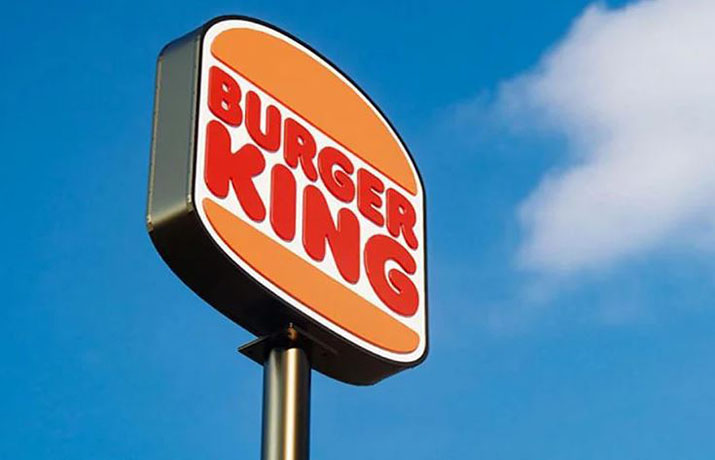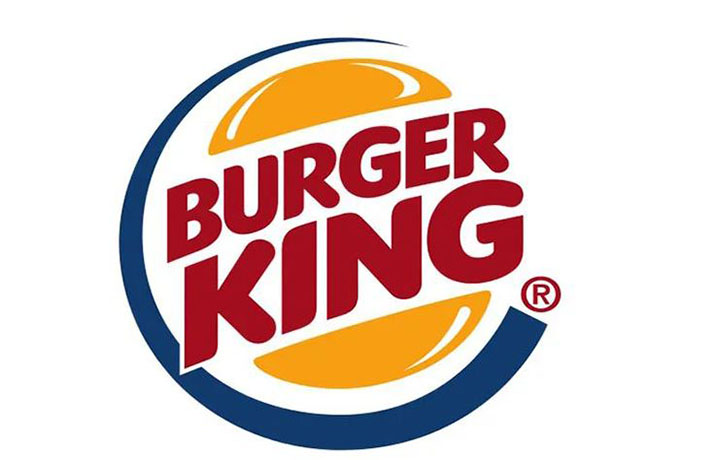
Burger King Font is a logo typeface basically, Burger King is an American multinational chain of hamburger fast food restaurants.
Headquartered in Miami-Dade County, Florida, the company was founded in 1953 as InstaBurger King, a Jacksonville, Florida-based restaurant chain.
It is one of the most popular fast food brands worldwide with approximately 18 locations worldwide. The company is owned by Restaurant Brands International, headquartered in Florida, and has approximately 35,000 employees.
“Insaniburger with Cheese by Insanitype! Font Design is a font based on the Burger King logo. This font includes 158 glyphs and 13 binary stored kerning pairs. Moreover, it also supports 68 global languages.”
• It’s perfect for logos, product packaging, product designs, comic covers, game titles, game developments, movie posters, unique emblems, product designs, special event cards, game graphics, social media banners, cartoons, kid-friendly elements, headers, banners, flyers, headers, printing on cards, and a lot more because of the rounded shapes of the letters.